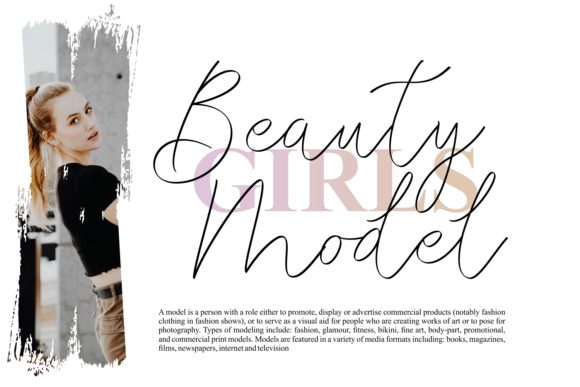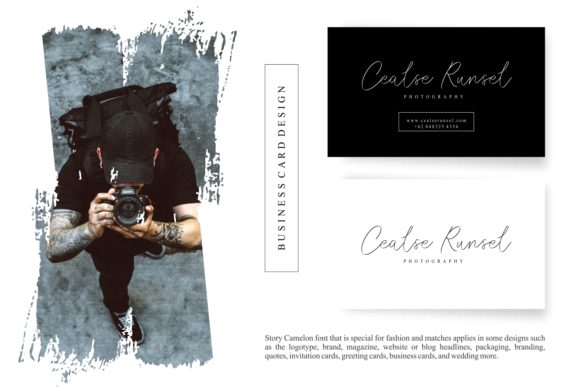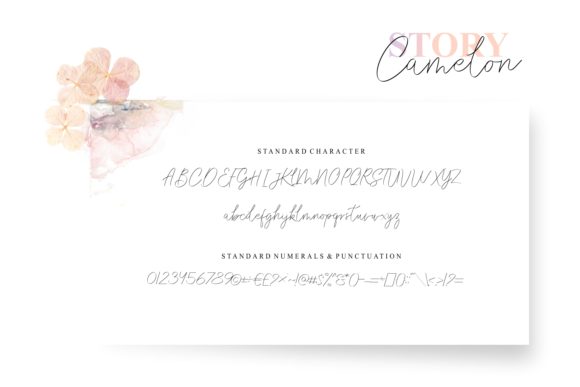
Story Camelon Font
About Story Camelon Font
The Story Camelon is an amazing font which was created for fashion designs. It can also be used for logos, magazines, websites, blog headlines, and much more!